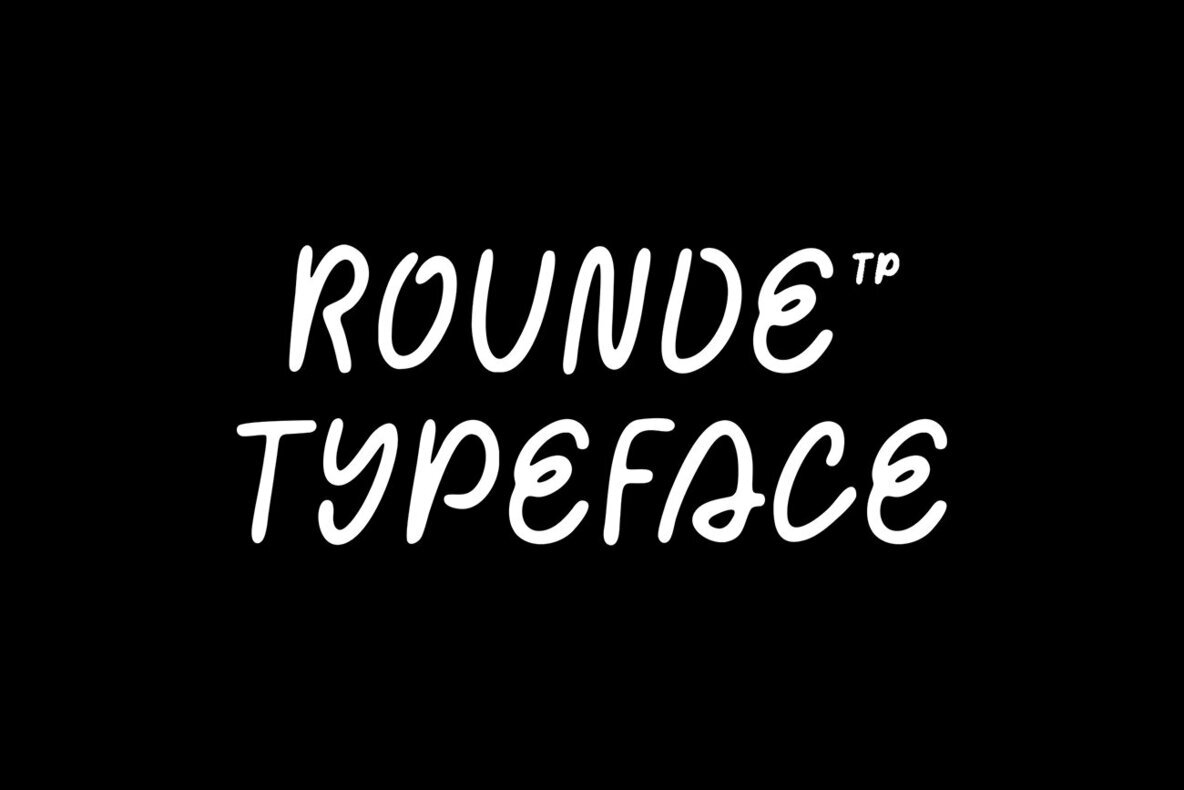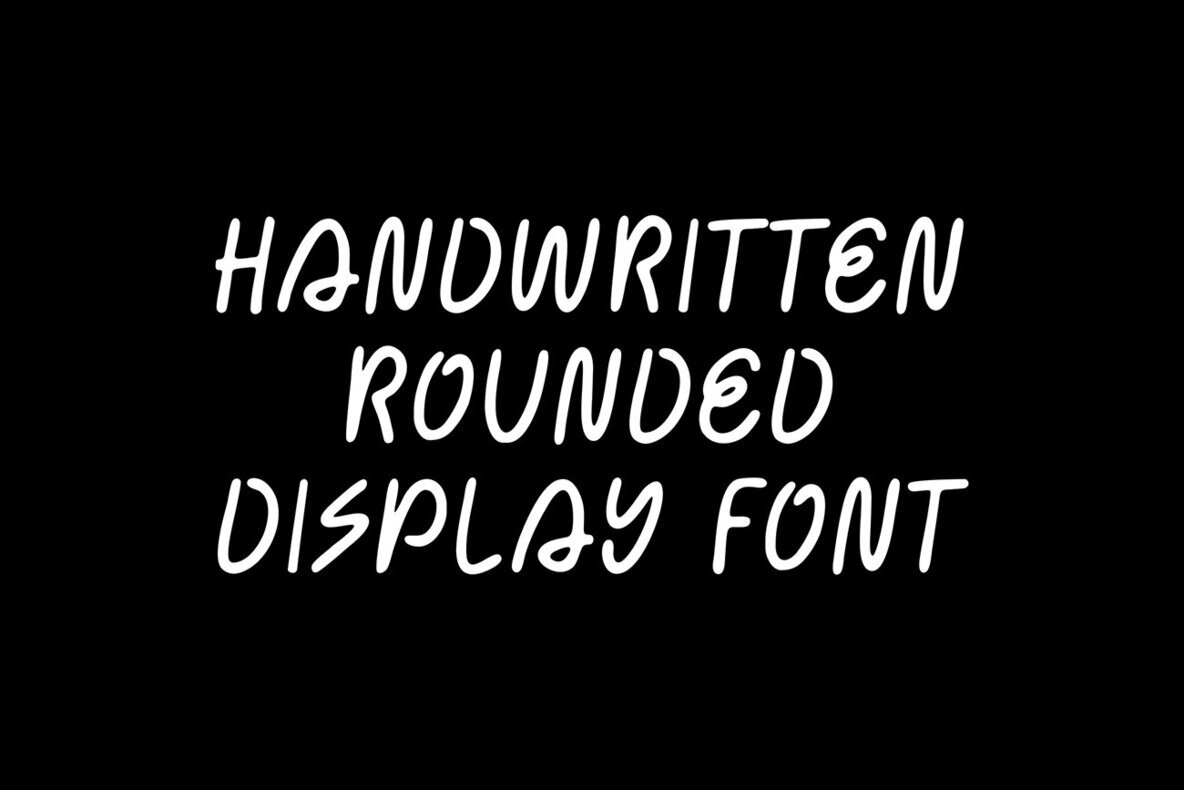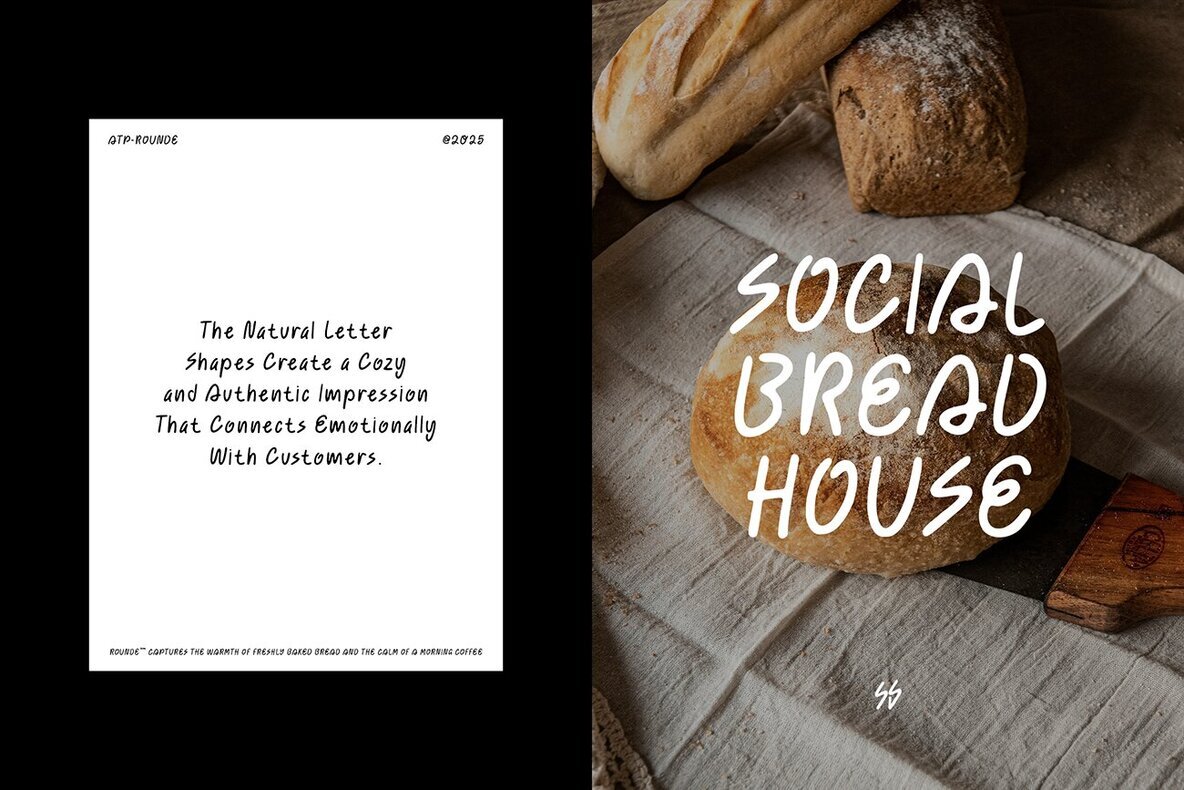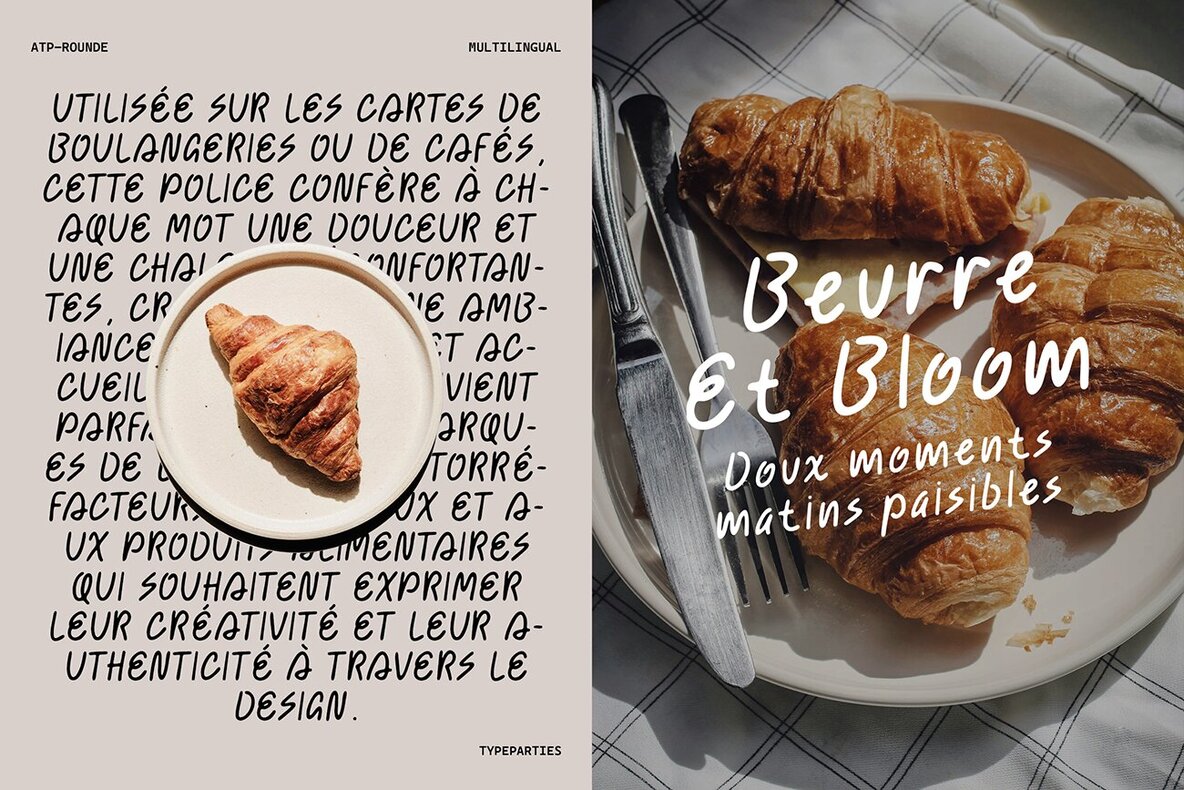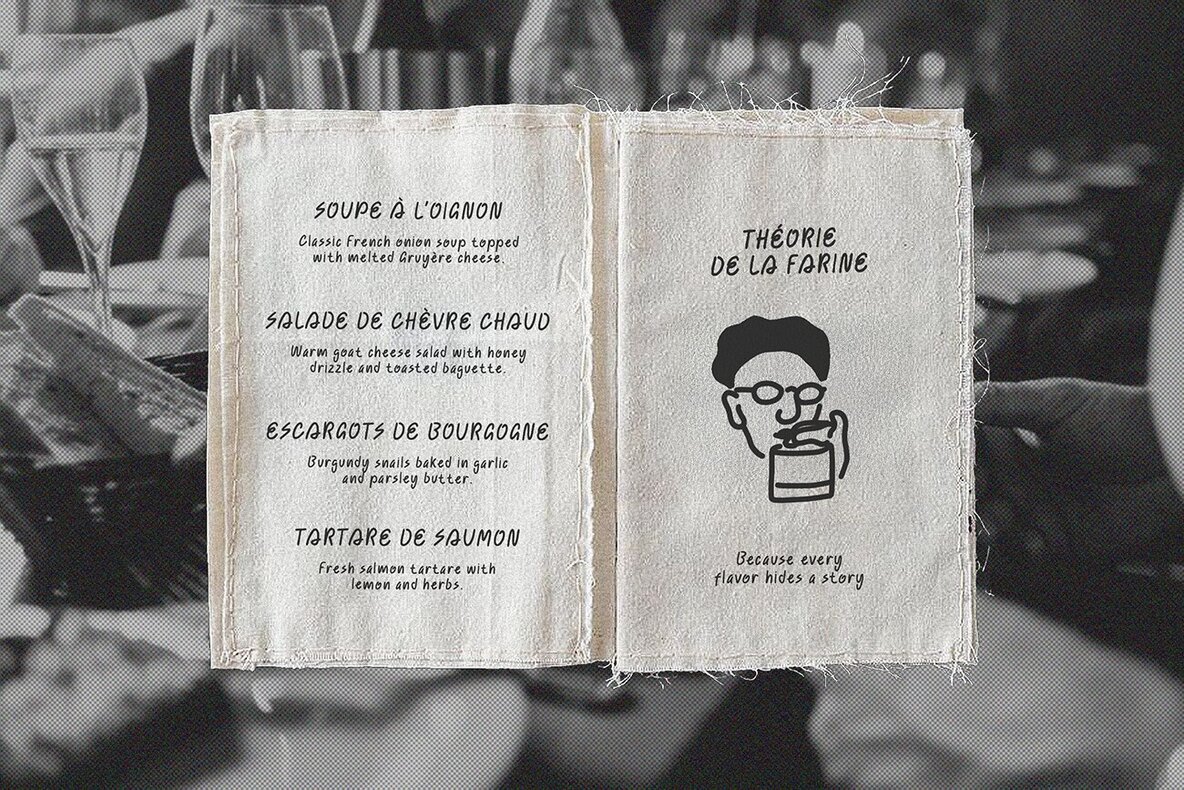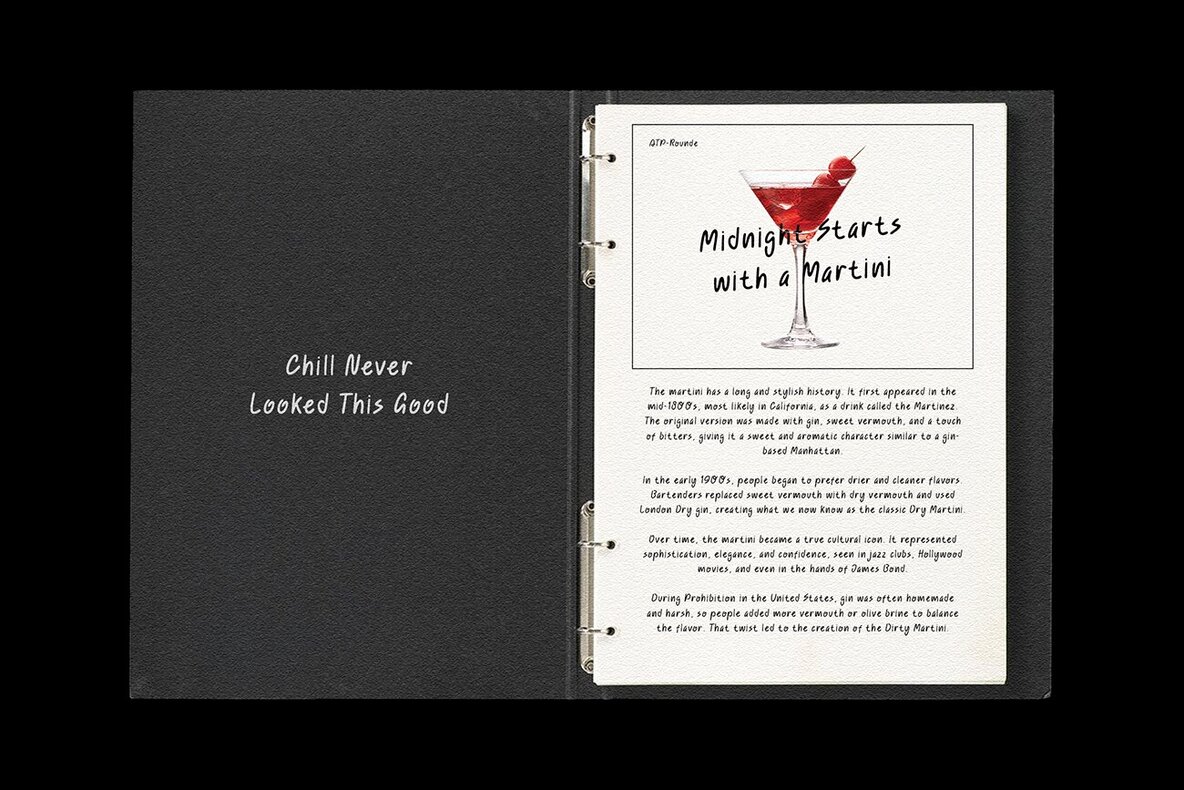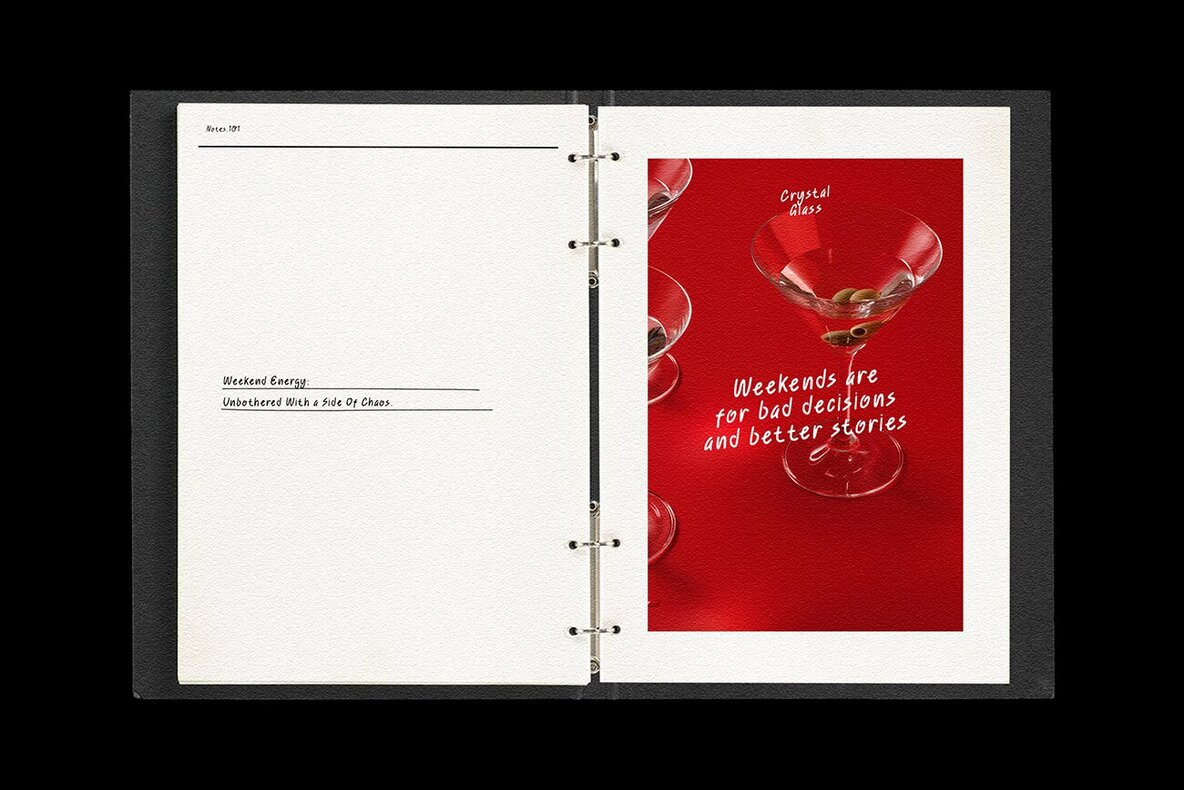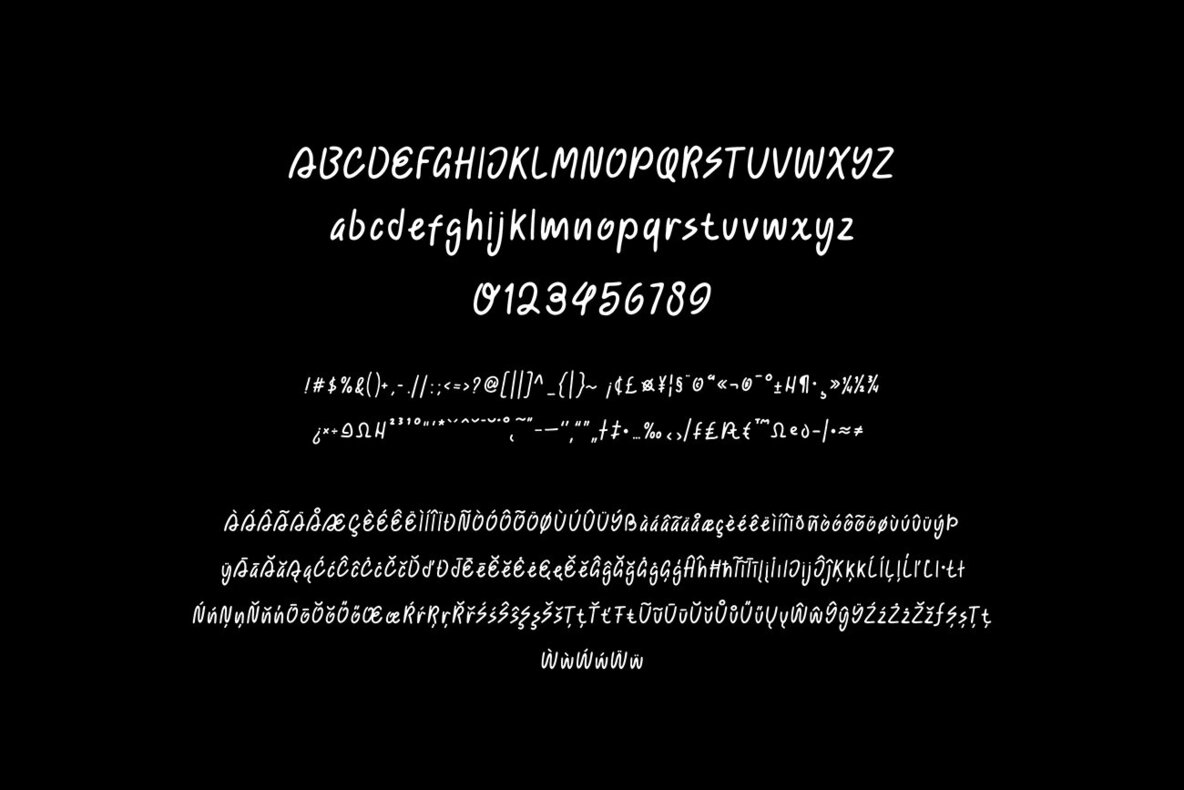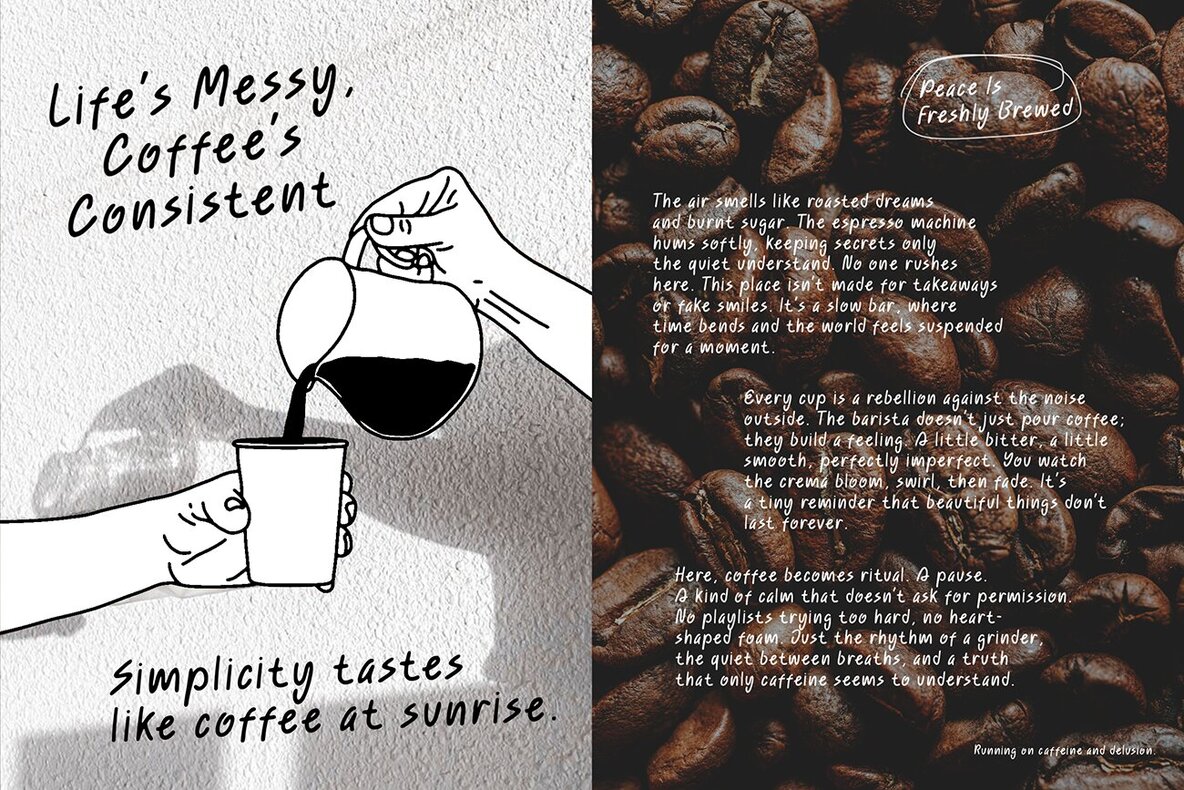
Rounde Font
ATP Rounde
Rounde is a smooth handwritten typeface with soft rounded edges that captures the cozy warmth of a morning coffee or freshly baked bread. Designed for cafés, bakeries, and handmade product packaging, this font blends organic charm with modern readability. Perfect for menus, signage, and social media branding that need a personal and inviting touch. Creative Market Features: